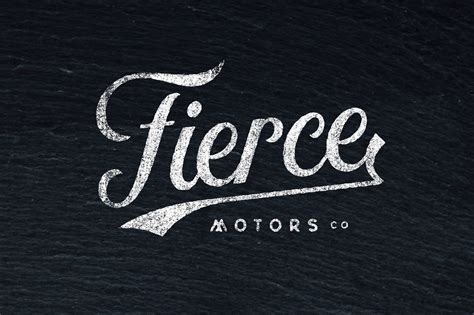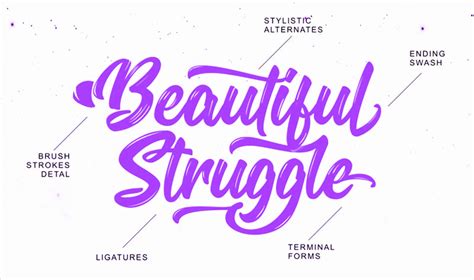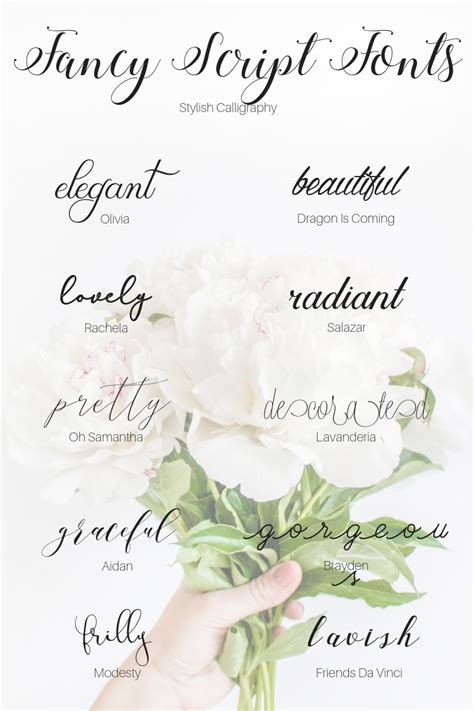
Font For A Play Script - Mattoa Script Font - Befonts.com / Similar fonts for ca play script from myfonts.com.. Is a grotesque font another name for a gothic font? Some scripts are more formal like elegant calligraphy, while others are casual like cursive handwriting. According to the designer, the font is based on the lettering that calligrapher and logo. This font software is licensed under the sil open font license, version 1.1. Most guidelines specify either times new roman or courier, usually 12pt.
Script, caps, and ornament, which you can. Typography is currently playing a central role in web design, with progressive improvements like variable fonts, css shapes, flexbox, css grids and subgrid definitively changing the way we work with typography in web design. Archive of freely downloadable fonts. I have written a play using the courier new font as i understand this to be the standard font for screenplays, so i assumed this would be the case. Playlist is a perfectly imperfect handdrawn font with dry brush styles.playlist font contains 3 styles: ✔️ customize your own preview on ffonts.net to make sure it`s the right one for your designs. As we have briefly mentioned, a rule of thumb for a does the rationale for movie script formats date back to early shakespeare theater plays?? You have three options when it comes to creating a trendy vintage style logo or insignia: Some scripts are more formal like elegant calligraphy, while others are casual like cursive handwriting. Home › script › brush › playlist script font free. Script typefaces are based upon the varied and often fluid stroke created by handwriting, pretty much like the cursive fonts just typically more elegant. Download 10,000 fonts with one click for $19.95. Different fonts can be used and look best on different uses.
Script typefaces are based upon the varied and often fluid stroke created by handwriting, pretty much like the cursive fonts just typically more elegant. You have three options when it comes to creating a trendy vintage style logo or insignia: Buy a premium script font, draw your own or use a free font. Download 10,000 fonts with one click for $19.95. Although we have the largest database of fonts, the search for a font from an image gets mixed results like the image above.
Most guidelines specify either times new roman or courier, usually 12pt. Let me know in the comments if you want more design tutorial videos! Feel script designed by alejandro paul is a typical font family in cursive script writing. The best selection of script fonts for windows and macintosh. Licensed for personal and commercial use. Playlist is a perfectly imperfect handdrawn font with dry brush styles.playlist font contains 3 styles: A fontforge python script to patch any font. Generally, there are two styles of script writing.
The best free script fonts for creating vintage logos.
I've got a link to play one in your browser. Generally, there are two styles of script writing. The requirement for fonts to remain under this license does. Script typefaces are based upon the varied and often fluid stroke created by handwriting, pretty much like the cursive fonts just typically more elegant. According to the designer, the font is based on the lettering that calligrapher and logo. Licensed for personal and commercial use. I have written a play using the courier new font as i understand this to be the standard font for screenplays, so i assumed this would be the case. Typography is currently playing a central role in web design, with progressive improvements like variable fonts, css shapes, flexbox, css grids and subgrid definitively changing the way we work with typography in web design. The best free script fonts for creating vintage logos. Script, caps, and ornament, which you can. You have three options when it comes to creating a trendy vintage style logo or insignia: See more ideas about fonts, script. Script fonts are created based on the varied and fluid stroke in handwriting.
Most guidelines specify either times new roman or courier, usually 12pt. Playlist is a perfectly imperfect handdrawn font with dry brush styles.playlist font contains 3 styles: The best free script fonts for creating vintage logos. Generally, there are two styles of script writing. As we have briefly mentioned, a rule of thumb for a does the rationale for movie script formats date back to early shakespeare theater plays??
Generally, there are two styles of script writing. Download 10,000 fonts with one click for $19.95. Some scripts are more formal like elegant calligraphy, while others are casual like cursive handwriting. According to the designer, the font is based on the lettering that calligrapher and logo. Browse by alphabetical listing, by style, by author or by popularity. Typography is currently playing a central role in web design, with progressive improvements like variable fonts, css shapes, flexbox, css grids and subgrid definitively changing the way we work with typography in web design. Let me know in the comments if you want more design tutorial videos! Is a grotesque font another name for a gothic font?
Script, caps, and ornament, which you can combine to create a beautiful designs.
Script typefaces are based upon the varied and often fluid stroke created by handwriting, pretty much like the cursive fonts just typically more elegant. Although we have the largest database of fonts, the search for a font from an image gets mixed results like the image above. These screenplays can be original works or. Script font is a broad style that refers to any typeface that looks like it was drawn by hand. If you're to use only 5 free font families for all of your design work what would they be? Although fonts are constantly being added to the portal, due to the limited resources of the administration, it is difficult to keep track of all the updates. Browse by alphabetical listing, by style, by author or by popularity. The requirement for fonts to remain under this license does. Script, caps, and ornament, which you can. Feel script designed by alejandro paul is a typical font family in cursive script writing. Each font has its own separate page, where all available styles are presented in a visual form. As we have briefly mentioned, a rule of thumb for a does the rationale for movie script formats date back to early shakespeare theater plays?? Typography is currently playing a central role in web design, with progressive improvements like variable fonts, css shapes, flexbox, css grids and subgrid definitively changing the way we work with typography in web design.